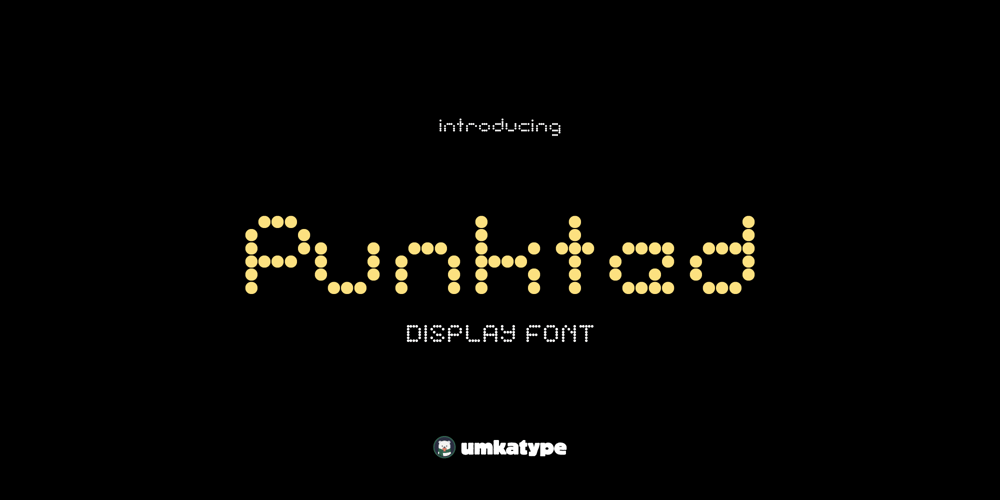
Punkted Font Family was designed by Alper Çakıcı and published by Umka Type. Punkted contains 1 styles and family package options. “Punkted” is a dynamic and modern dotted font designed to make your text stand out with a touch of creativity. With full support for the Cyrillic alphabet, it allows you to express yourself in various languages seamlessly. Each character in Punkted is carefully crafted with precision, ensuring excellent readability and visual appeal. Whether you’re designing posters, headlines, or digital graphics, Punkted adds a playful yet professional vibe to your projects.